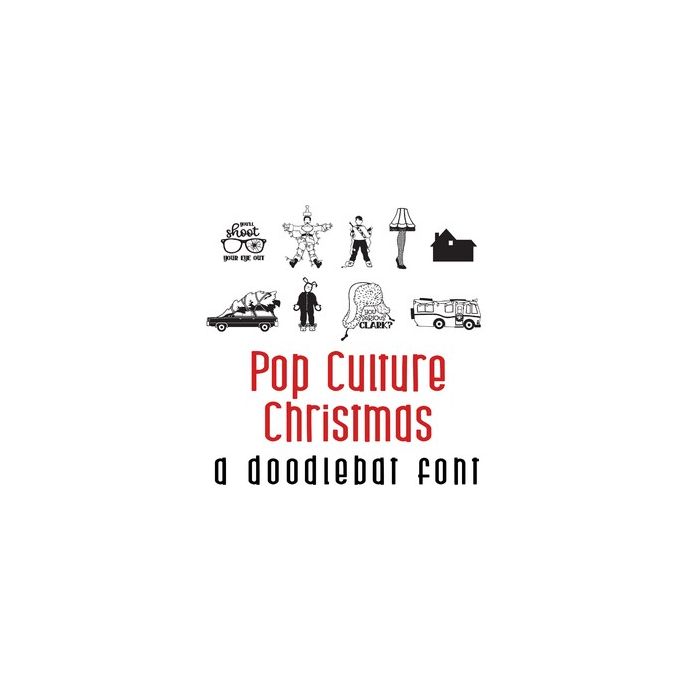
This fun doodlebat font features 28 Pop Culture Christmas images, perfect for cards, crafts, gifts, decor, planner stickers, scrapbook pages, parties and more!